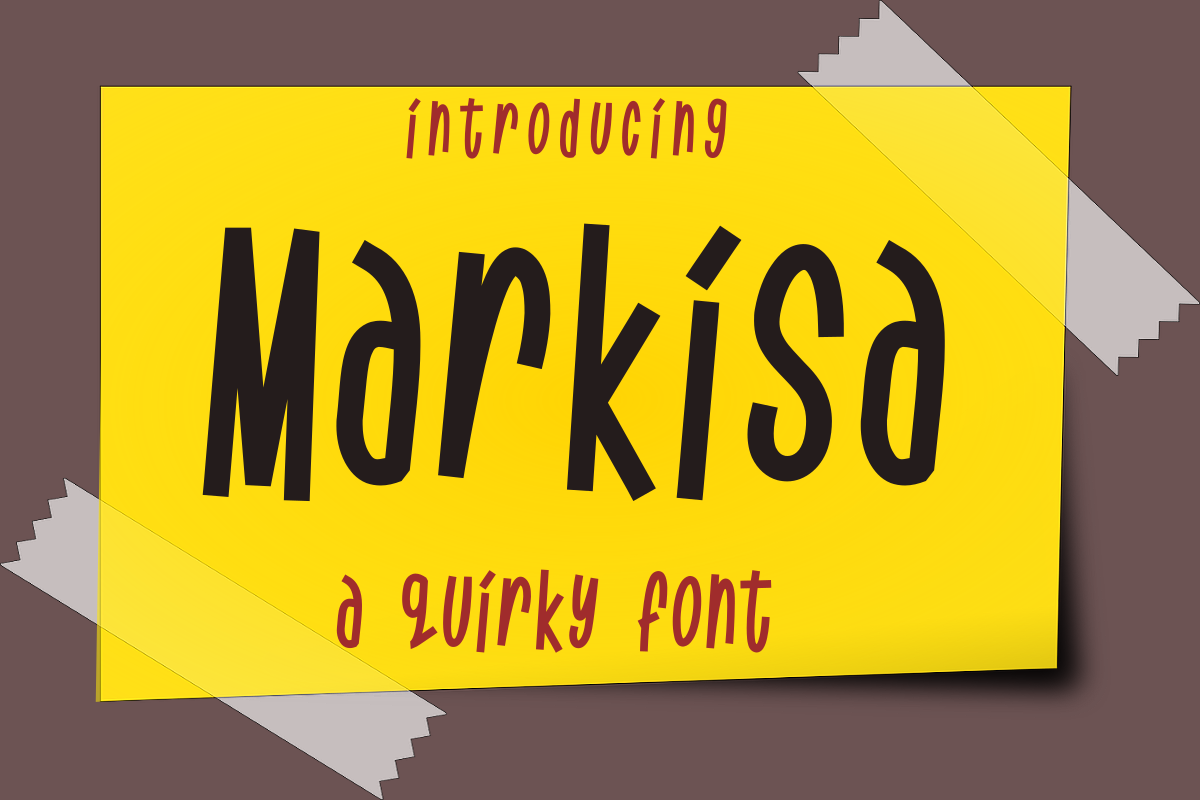
Markisa
Markisa is perfectly suited for stationery, logos, t-shirt, paper, print design, website header, photo frame, flyer, music cover, poster, image slider and much more.